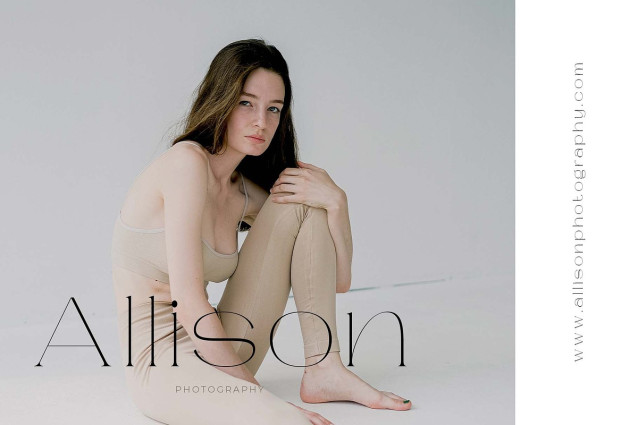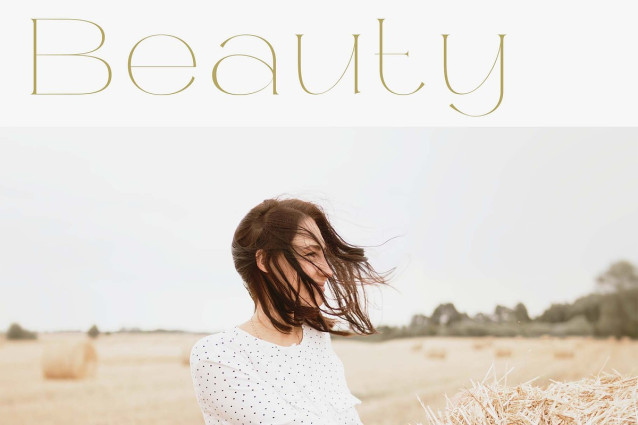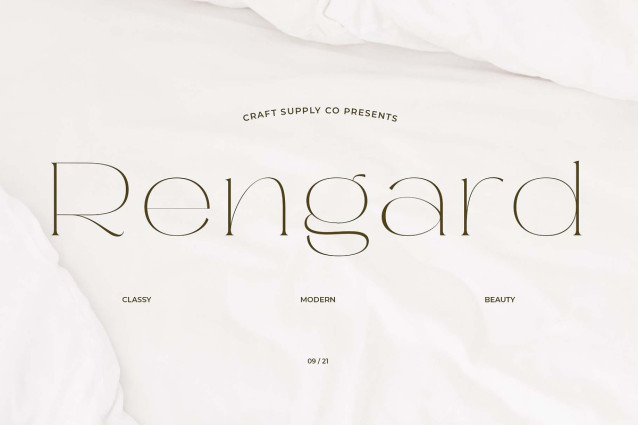
Rengard Rough Font
Rengard Font – Modern Serif Typeface consisting of a low contrast serif fonts with a classy chic and beauty look.. It can be used to create almost all types of design projects like print materials. Just use your imagination and your project will become more alive and look great than ever with this typeface.
You want to make a greeting card or a package design, or even a brand identity, craft design, any DIY project, book title, wedding font, pop vintage design, retro design or any purpose to make your art / design project look pretty and trendy? Feel free to play with this fonts!